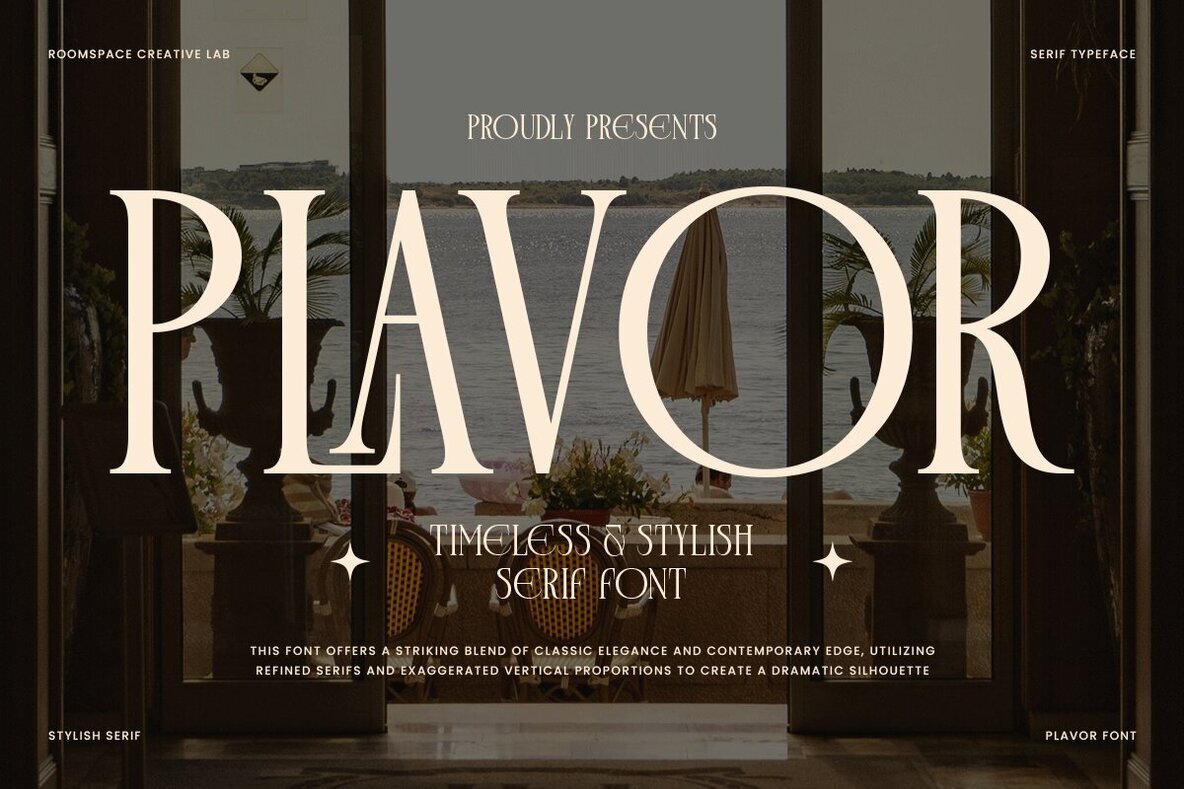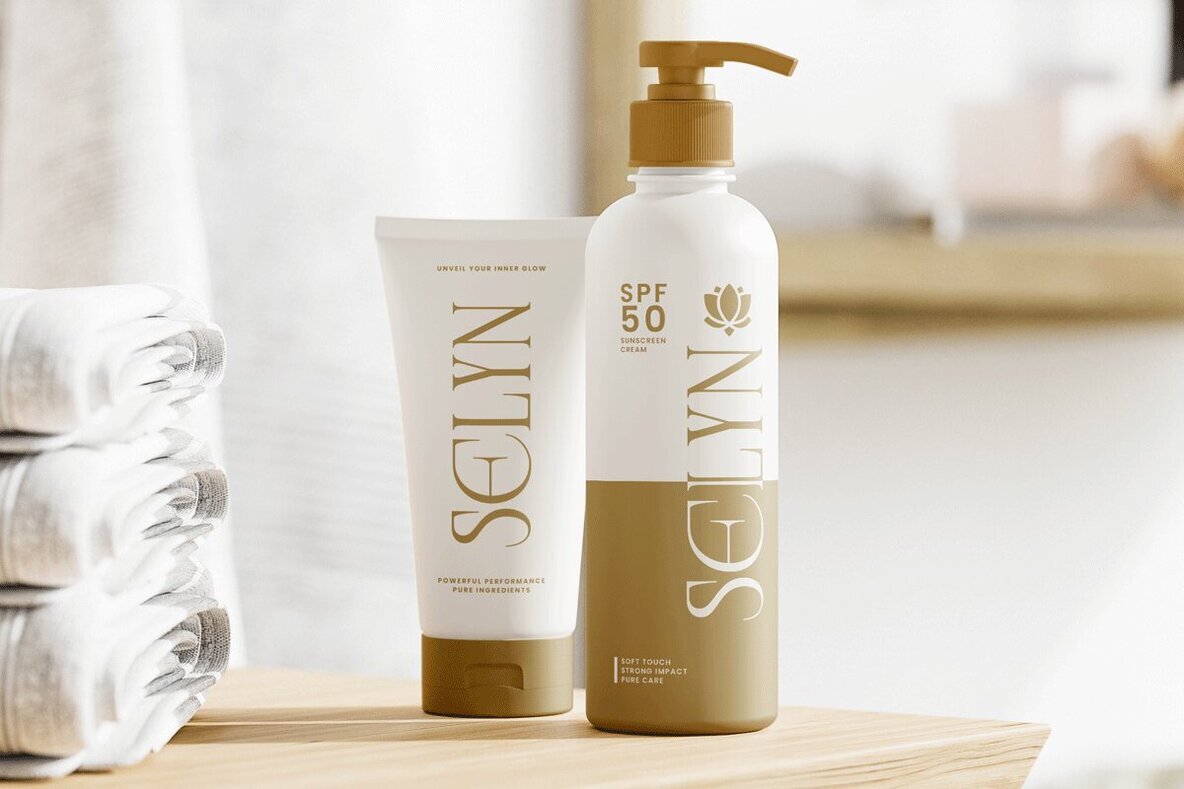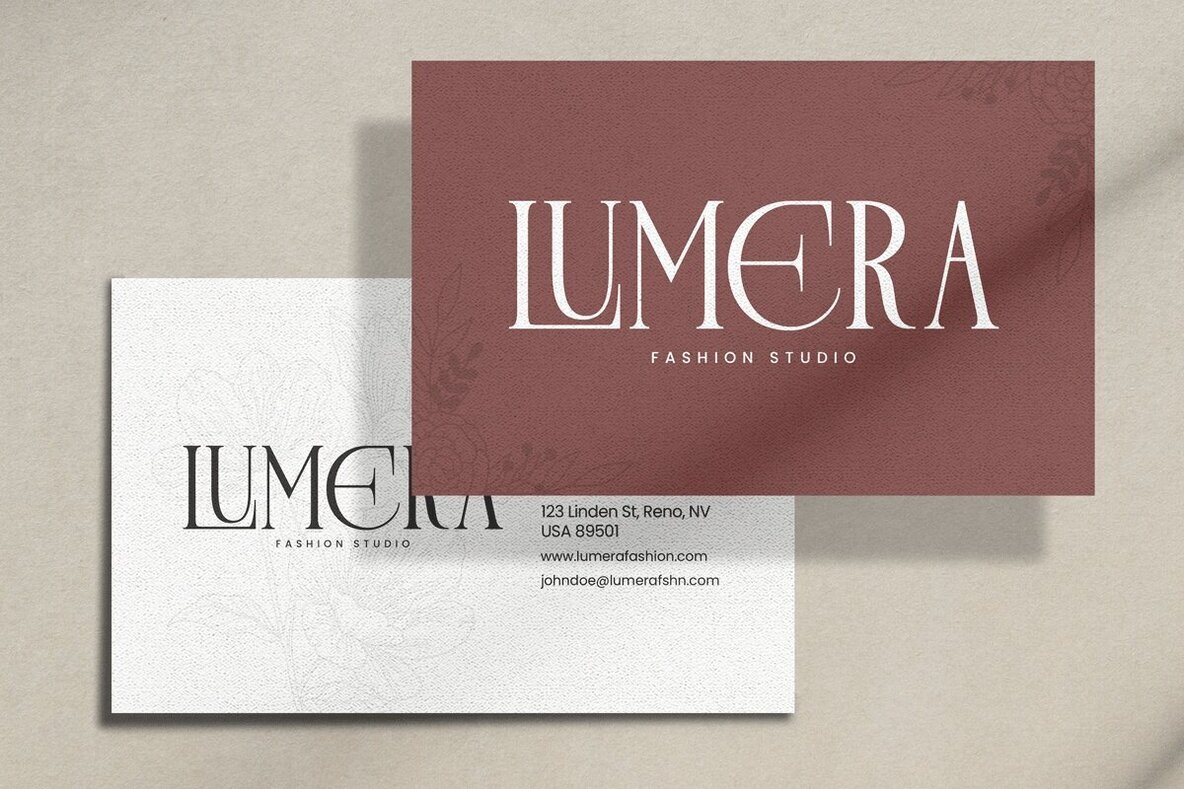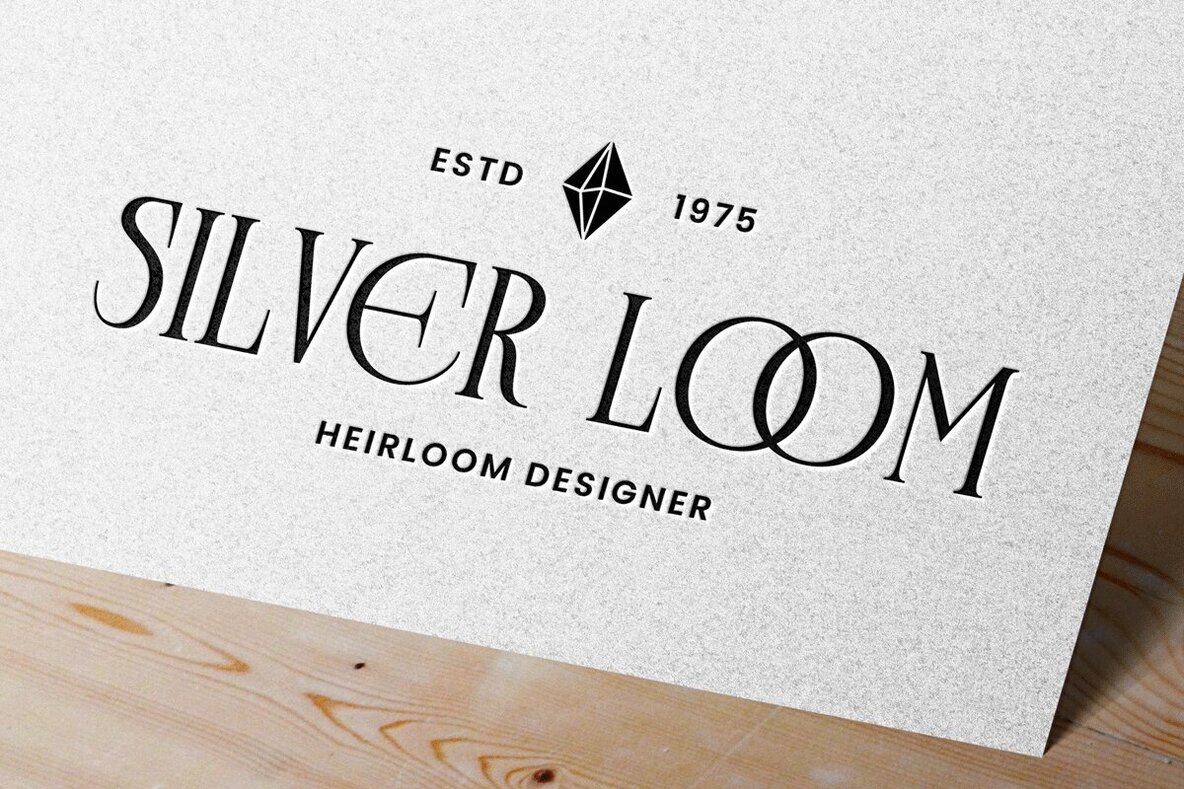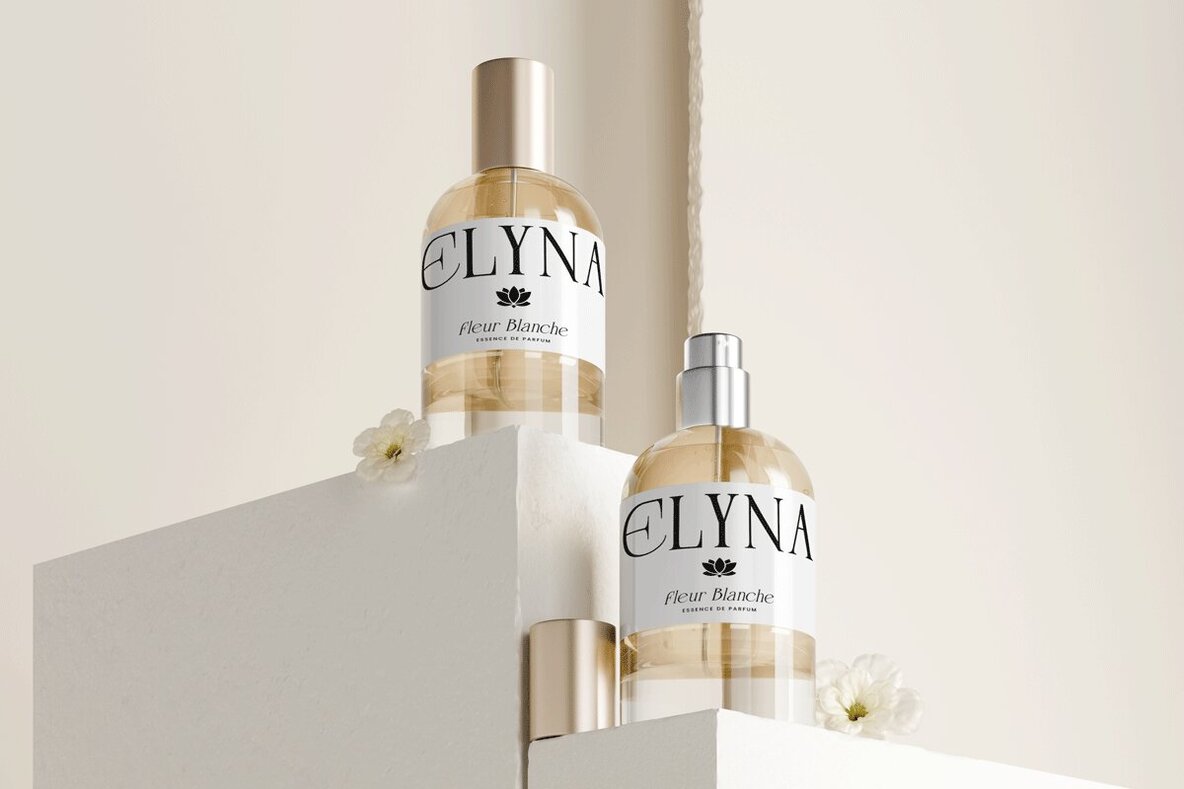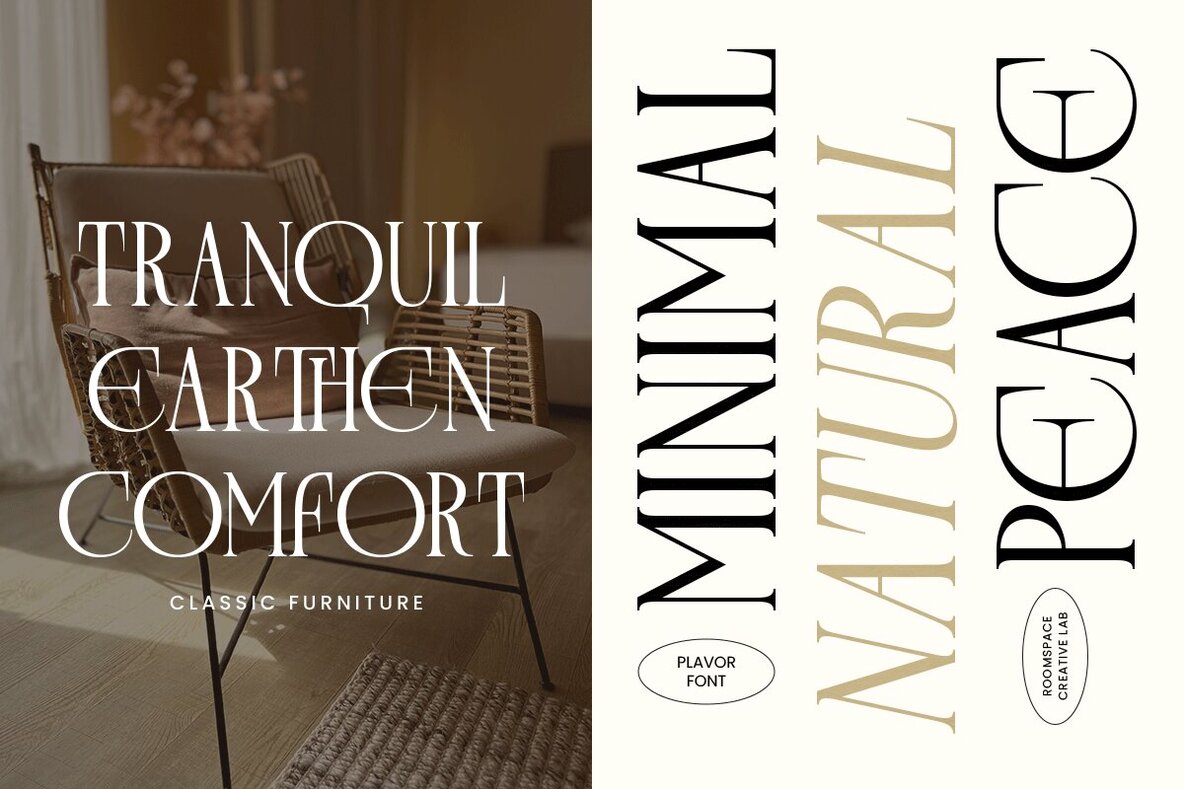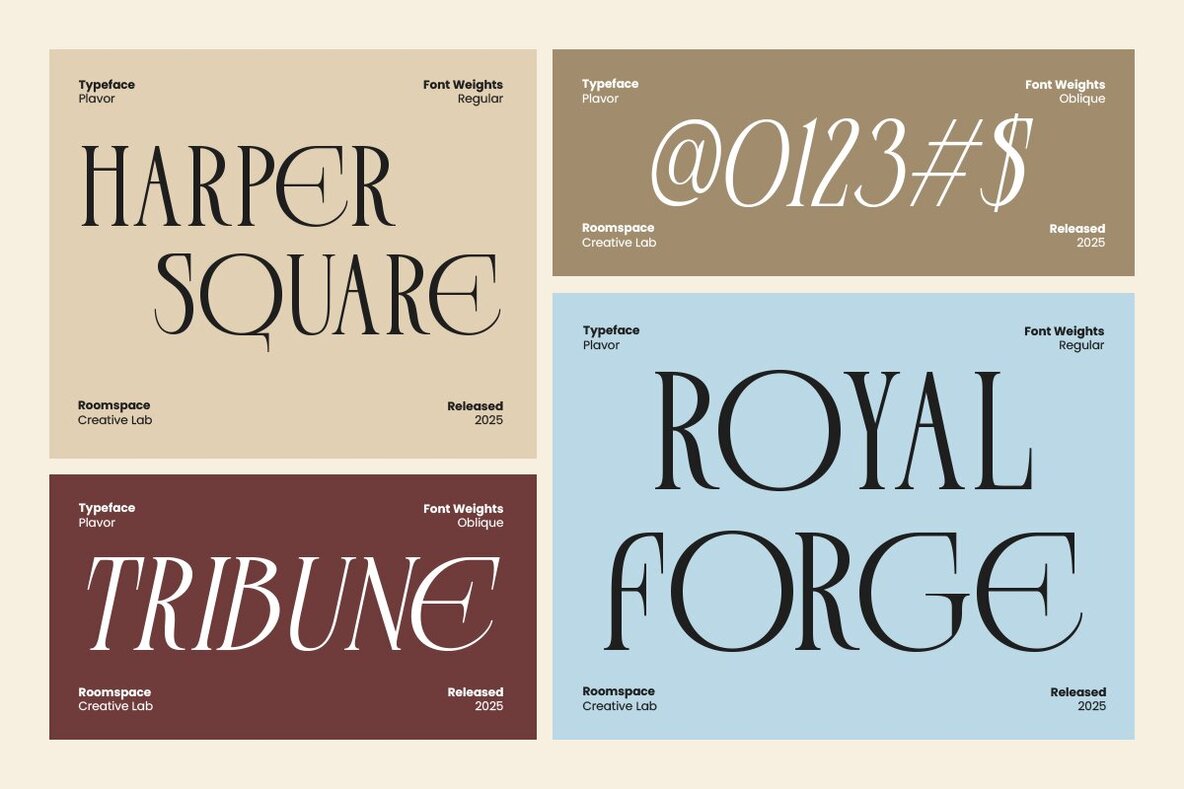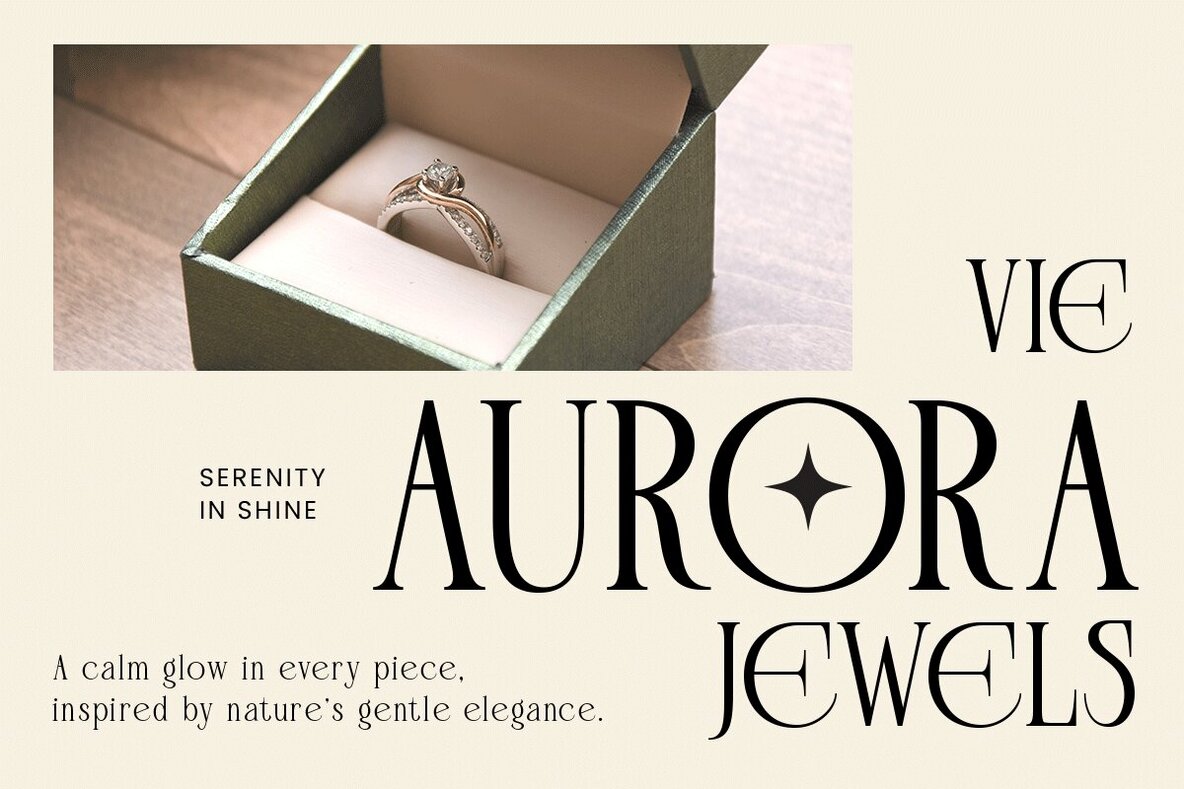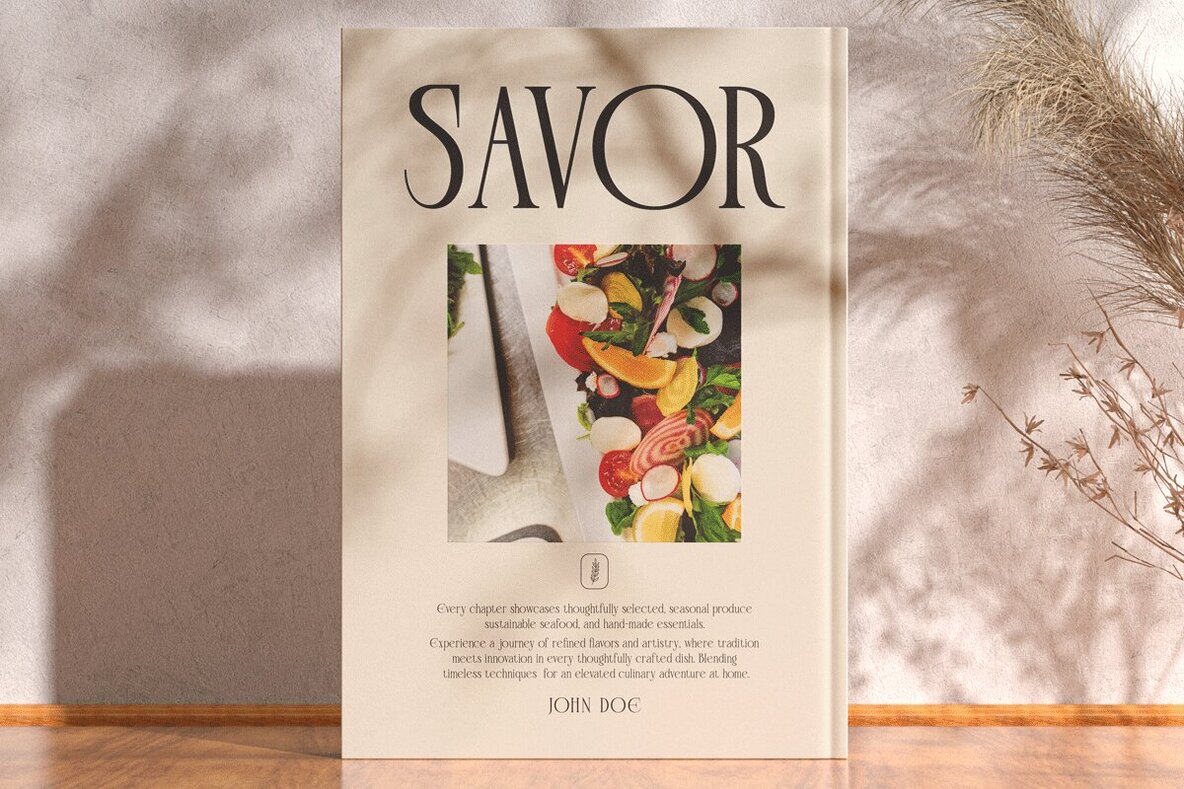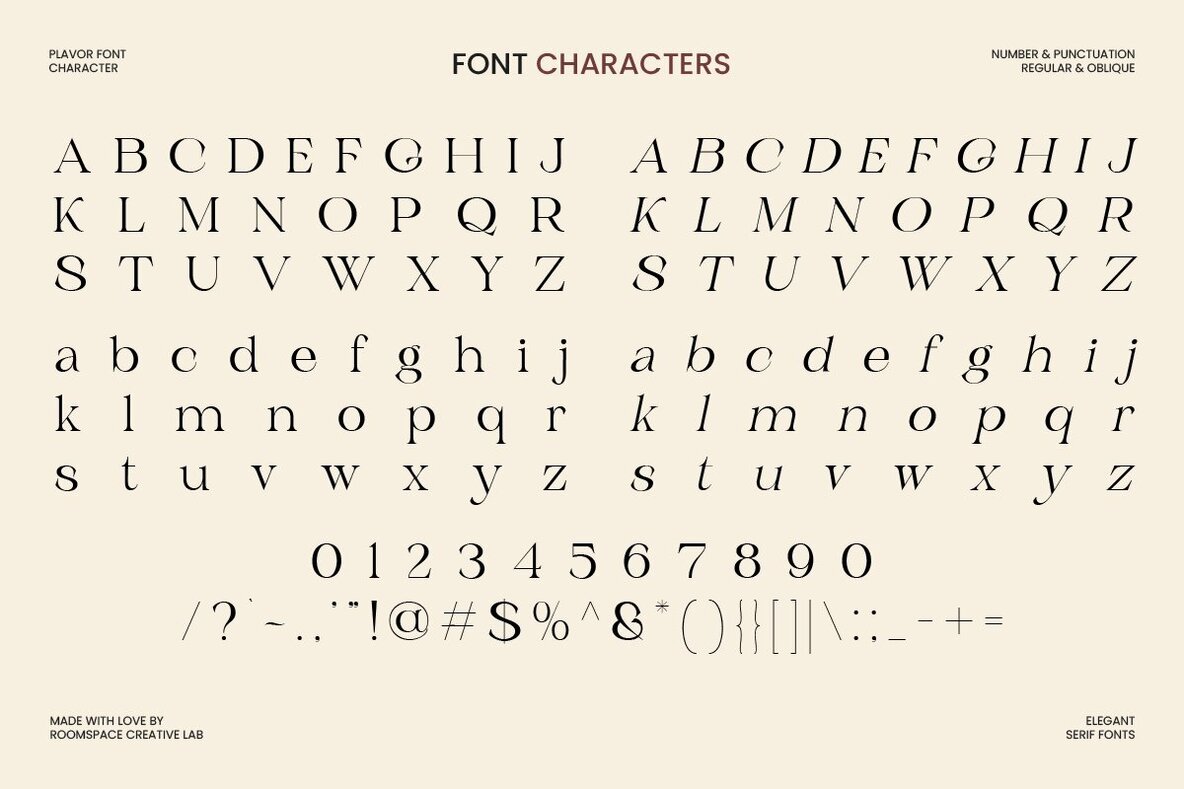
Plavor Font
Discover the essence of refined luxury with Plavor, a serif font that masterfully blends classic typography with a modern edge. This typeface captures the grace of tradition while embracing contemporary aesthetics, making it an ideal choice for creators who seek elegance in their visual compositions. Each letter in Plavor showcases meticulous design with tall proportions, fine serifs, and harmonious spacing for optimal balance and readability. Its sleek curves and exaggerated vertical details create a bold yet graceful presence. With OpenType features, multilingual support, and refined kerning, this font adapts seamlessly to both digital and print layouts. Plavor excels in diverse applications, from branding and magazine covers to packaging and wedding stationery. Its luxurious, timeless aesthetic enhances projects with sophistication. Whether for headlines or logotypes, Plavor infuses designs with classic beauty and modern flair.Plavor Serif Font: Timeless Elegance in Design